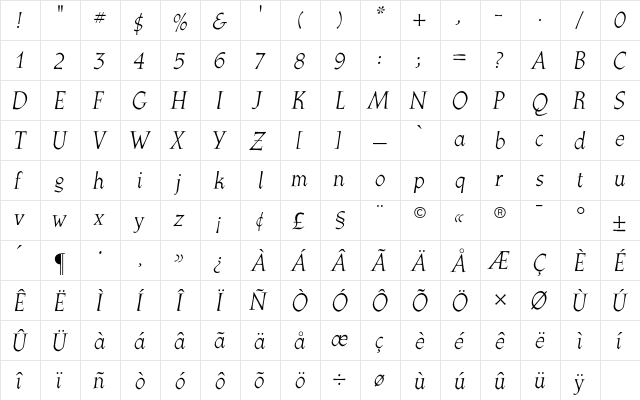
Athenaeum CG Italic
Design Context for Athenaeum CG Typeface
Athenaeum CG offers clean, dependable letterforms without strong stylistic allegiance, making it a practical choice for designers who need flexibility. The dynamic lean of this cut emphasises speed and emphasis in any layout.